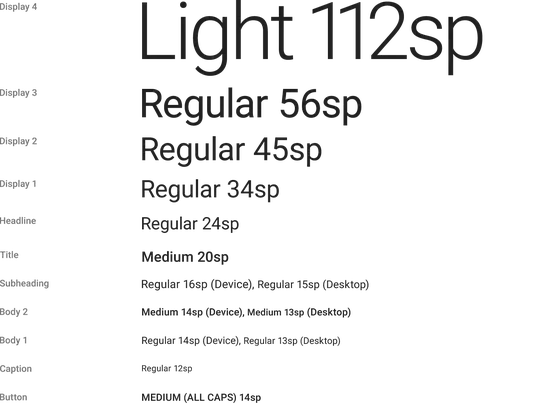
While designing a mobile app or mobile responsive site, what should be the minimum font size that wouldn't affect user's eye sight?
For mobile layouts, font sizes are typically set in EMs rather than pixels so that the font size is relative, ready to respond to different screen parameters. 16px is ideal font-size below this font-size would be challenging for user to read.
5Which user? Me in my 60s or me at age 18? Actually, I have no problem reading text down to 13px. On which device? – Rob Dec 22 '16 at 13:12
4@Rob As long as you don't decide to join the pretentious "disable pinch-to-zoom website" club then ALL of your users will be able to use your site on any device imaginable. – MonkeyZeus Dec 22 '16 at 14:13
1Specifically for web, it's usually fine to use px since most mobile browsers will set a pixel ratio such that each CSS px scales to approximately 96 DPI viewed at arm's length. – Bob Dec 22 '16 at 23:30
1"em" was never widely adopted that's why browser developers changed the zoom functionality to also resize px values. Using px is fine nowadays. – Christian Strempfer Dec 26 '16 at 10:31
W3Recommendation on font-size has a note that says (emphasis mine):
To preserve readability, a UA applying these guidelines should nevertheless avoid creating font-size resulting in less than 9 pixels per EM unit on a computer display.
12 pixels, according to this article from "think with Google" on Mobile.
- Pick the right font. Your minimum font size should be 12 pixels; anything smaller and users will be squinting. Be sure to choose a typeface that is clean and easy to read. If possible, avoid use of image-based text.
12sp, which is used for captions, according to Material design typography section. This is the minimum font-size they propose (for both desktop or mobile). (See this question for more info on sp units).
Type sizes are specified with sp (scaleable pixels) to enable large type modes for accessibility.
Note that this is recommended for English and English-like scripts (Latin, Greek, and Cyrillic). For South and Southeast Asian and Middle Eastern languages, including Arabic, Hindi, and Thai:
Font size: For Title through Caption styles, font size is 1px larger than that specified for English. For styles larger than Title, the English type size is suitable.
Hi Alvaro The unit they proposed are not px it is SP(Scalable Pixel)
I'm reading your post on my phone and the 12sp line is unreadable. Maybe it's more representative of the actual sizes on a desktop, though. – Kat Dec 23 '16 at 20:09
2@Kat the image you see here is probably resized. This is supposed to be the minimum, 14sp for body is supposed to be readable. – Alvaro Dec 23 '16 at 20:11
There is no definite minimum it depends on the user. (especially if you are concerned with accessibility)
Some users will need to increase the font size (and the size they increase to will depend on external environmental factors e.g. are they wearing their spectacles or not)
So you should set a size and allow the user to change it up or down as they wish. Even better allow the user to set a size and remember it for their next use - they still might change it but it is more likely to be correct than any size the developer would choose.
This is why you should use relative font size changes if more than one font size so use EM as the size as in NB4's answer
It depends on the font. The default browser font of 16px/1em/100% is good for most cases according to The Google Developer's Insights page on fonts(emphasis mine):
By default, the browser will display each font at 16px (CSS pixels). This is a good default for most cases, but may need to be adjusted for a specific font - i.e. the default size can be set lower or higher to accommodate for the different properties of the font. Then, once the default size is set, larger and smaller fonts should be defined relative to the default size using pixels. These can then be used to adjust size of the text for primary, secondary, and other type of content on the page.
Typecast's blog post on a more modern scale for web typography also suggests using 16px (1em or 100%) as the base:
body { font-size: 100%; }
The post also has a suggested scale for headers and the like.
This depends to the highest degree on two parameters: The font you use and the device that the app will be viewed on.
- Font: Different fonts have different characteristics when it comes to readability. One basic rule controlling that is the x-height of the font, but there are other factors, too.
A book-like device with a theoretical 300 dpi held closely might actually ask for fonts as small as 10px or 11px.
On the other end of the spectrum a TV screen with 90dpi, that might sit across the hallway, certainly needs something more close to 18px or higher.
At the end of the day, the answer is: It depends. Take your app, use it yourself, test it with real people in real circumstances and evaluate the feedback. When implementing the result in CSS, you might find this technique valuable.